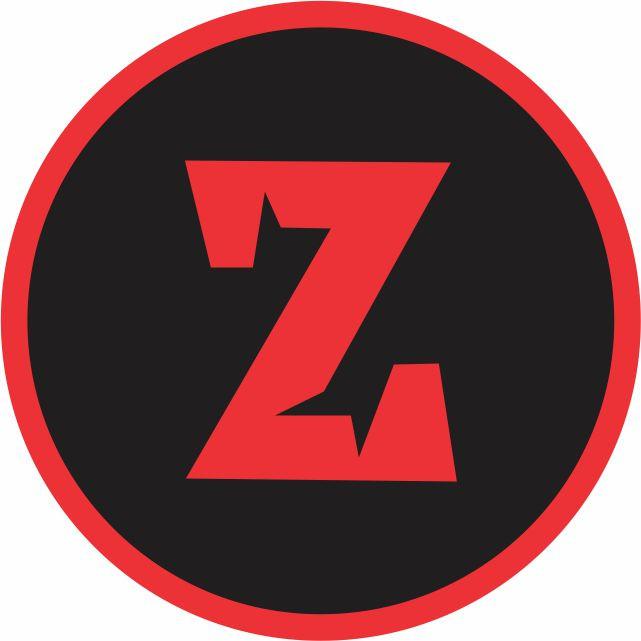
Elbrave Font Description
Elbrave is a bold, thick lettered and aggressive display font. It will elevate a wide range of crafting ideas, from cards, to branding, labels and much more. Add it confidently to your favorite creations and let yourself be amazed by the outcome generated.